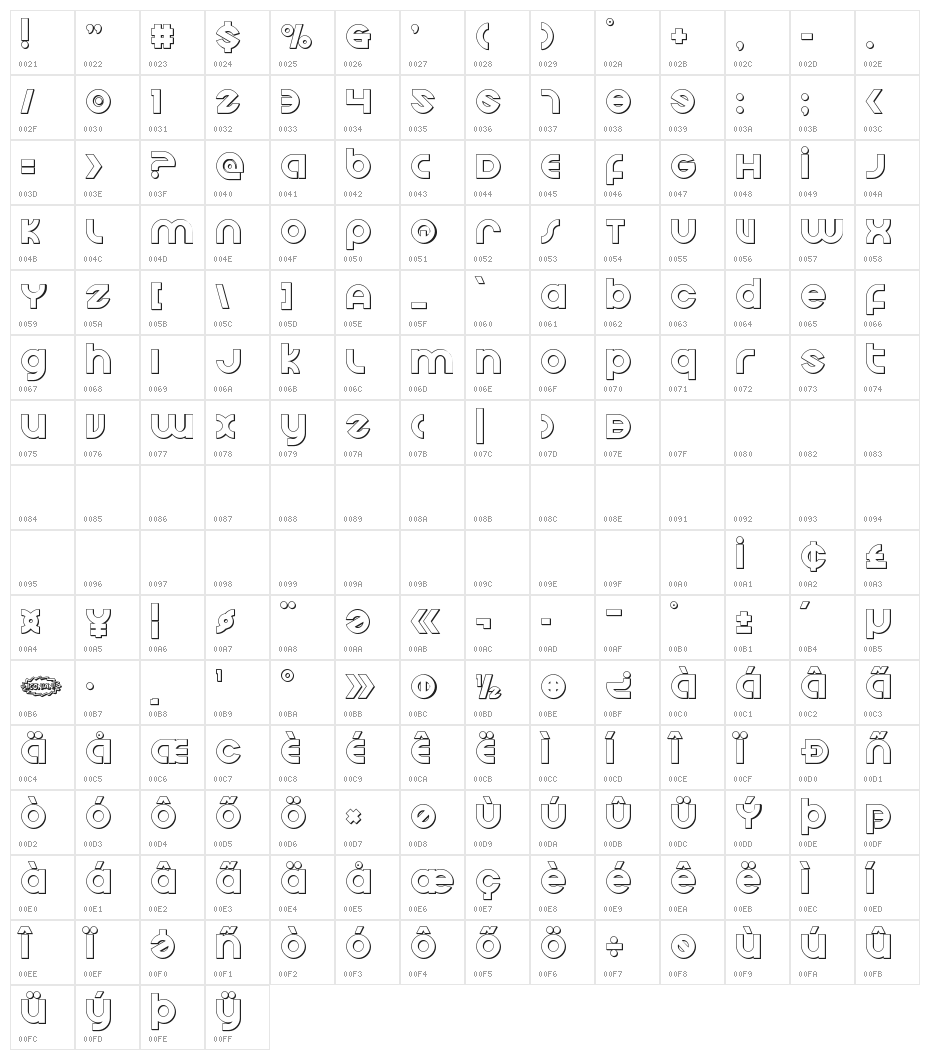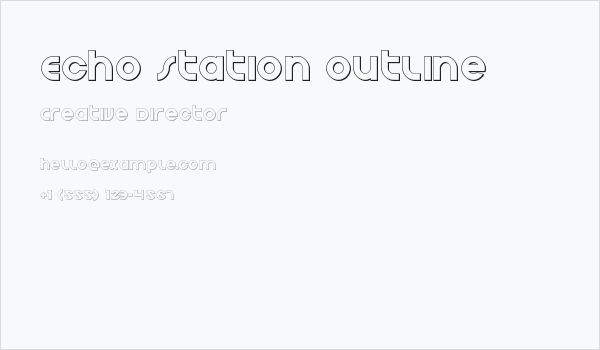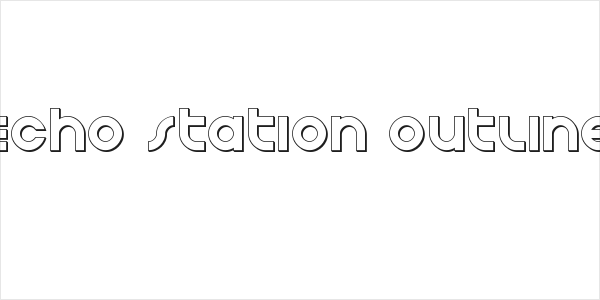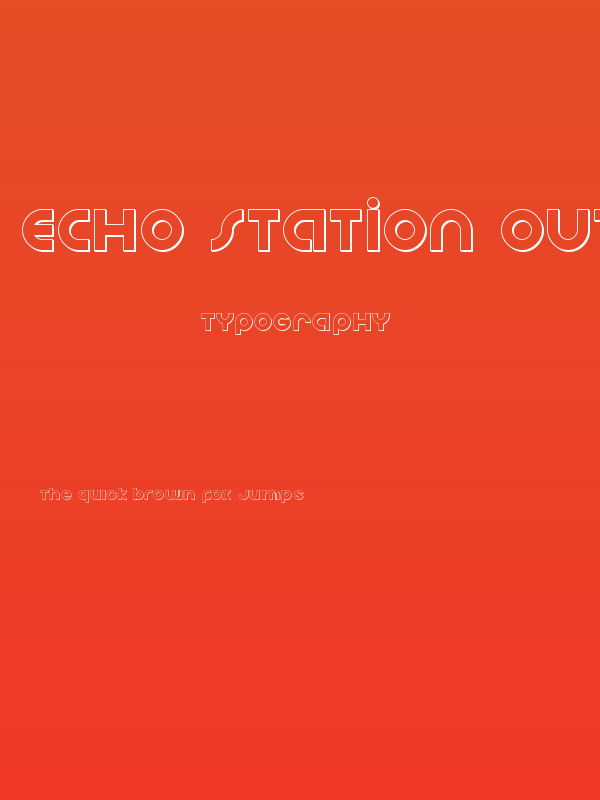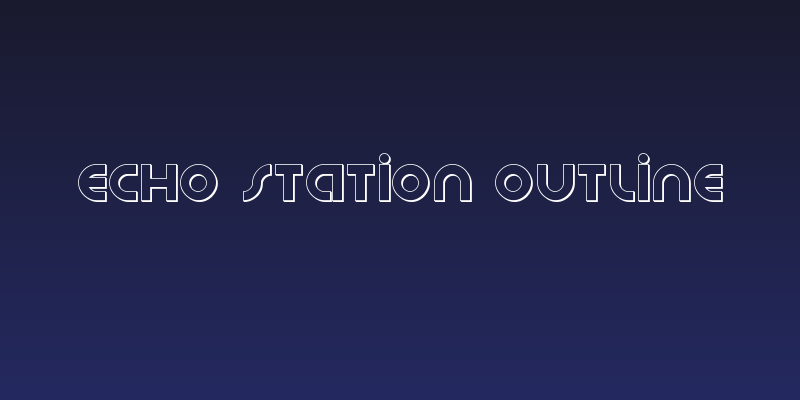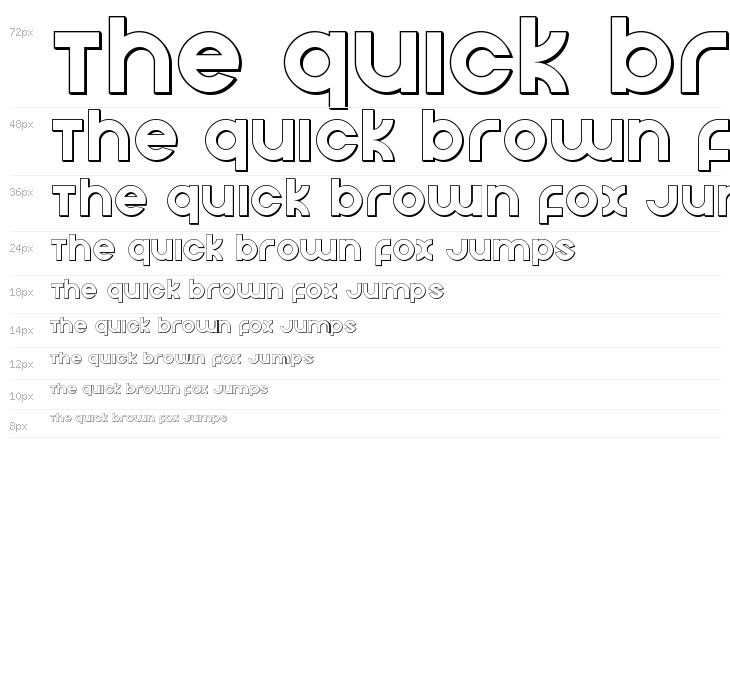
Echo Station Outline Font
Echo Station Outline Description
This font features a modern, geometric outline style with a futuristic flair. Each character is crafted with clean, bold lines that form a hollow interior, creating a striking visual effect. The uppercase and lowercase letters maintain a consistent design, with rounded edges and a uniform thickness that enhances readability. The numerals and special characters follow the same design principles, ensuring a cohesive look across all glyphs. This font's unique outline style makes it stand out, while its geometric structure provides a sense of balance and harmony.
| Proposed Projects | Ideal for futuristic branding, tech-related projects, posters, and digital media where a modern and eye-catching typeface is desired. |